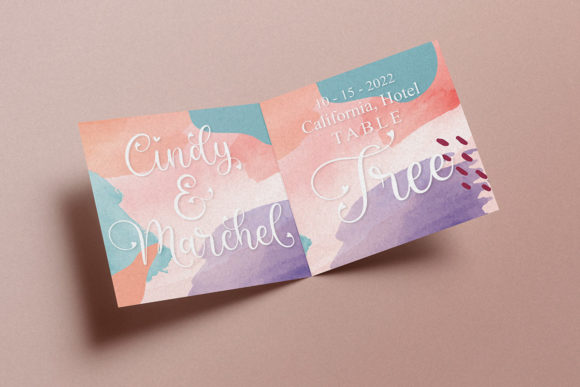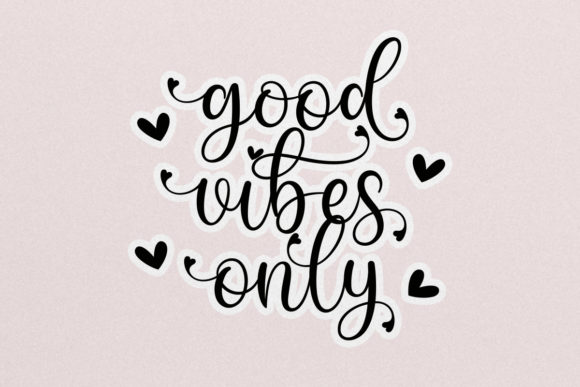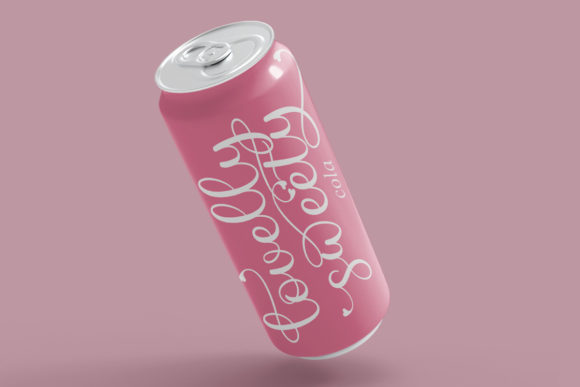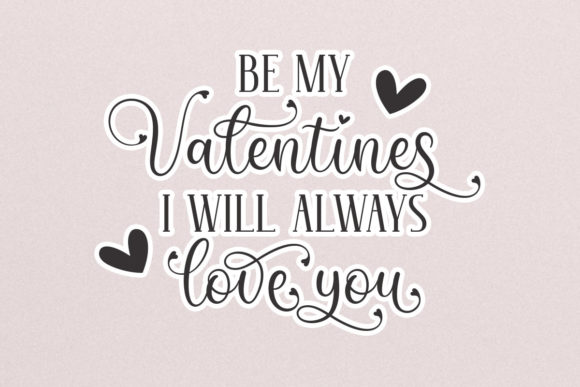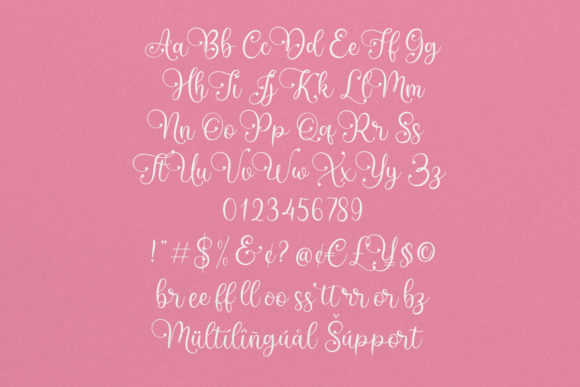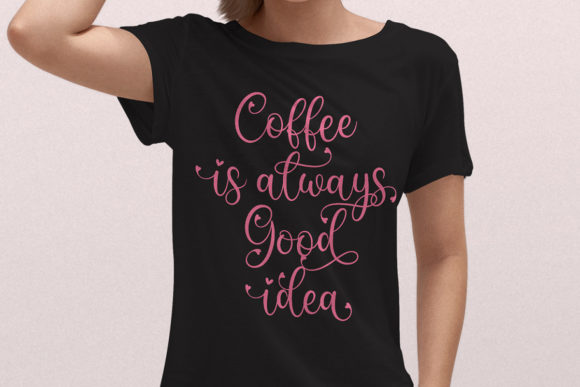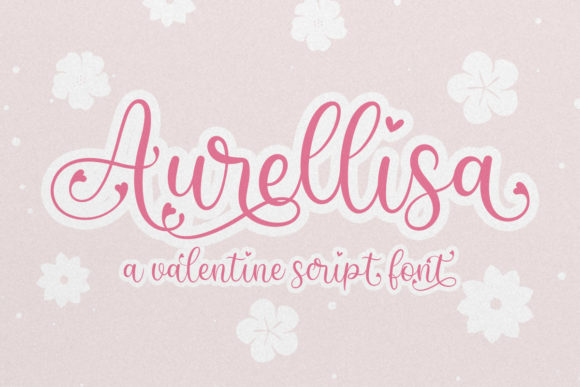
Aurellisa Font: The Perfect Handwritten Touch for Your Designs
Are you a designer or crafter looking for a font that exudes elegance and charm? Look no further than the Aurellisa Font. This beautiful handwritten font is perfect for adding a personal touch to your designs, and its versatility makes it suitable for a wide range of projects.
The Charm of Aurellisa Font
Aurellisa Font feels equally charming and elegant, making it an excellent choice for designs that require a sophisticated and refined look. Its flowing lines and delicate curves give it a whimsical feel that’s sure to capture the attention of your audience. Whether you’re designing wedding invitations, thank you cards, or greeting cards, Aurellisa Font is sure to make your project stand out.
One of the best things about Aurellisa Font is its versatility. It looks stunning on a variety of design projects, including:
- Wedding invitations: Add a touch of elegance and romance to your wedding invitations with Aurellisa Font.
- Thank you cards: Express your gratitude with beautifully designed thank you cards featuring Aurellisa Font.
- Quotes: Make your quotes stand out with the elegant and cursive lines of Aurellisa Font.
- Greeting cards: Create stunning greeting cards for special occasions like birthdays, anniversaries, and holidays.
- Logos: Use Aurellisa Font to create a unique and memorable logo for your business.
- Business cards: Add a personal touch to your business cards with Aurellisa Font.
Aurellisa Font is PUA encoded, which means you can access all of the glyphs and swashes with ease. This feature makes it easy to customize your designs and add a personal touch. With PUA encoding, you can:
- Access a wide range of glyphs and swashes to enhance your designs.
- Easily customize your font to fit your design needs.
- Create unique and intricate designs with minimal effort.
Why Choose Aurellisa Font?
There are many reasons why Aurellisa Font is an excellent choice for designers and crafters. Here are a few:
- Elegant and charming: Aurellisa Font exudes elegance and charm, making it perfect for designs that require a sophisticated look.
- Versatile: Use Aurellisa Font for a wide range of design projects, from wedding invitations to logos.
- Easy to use: With PUA encoding, accessing glyphs and swashes is easy, making it simple to customize your designs.
- High-quality: Aurellisa Font is a high-quality font that’s perfect for professional designs.
Tips for Using Aurellisa Font
Here are a few tips for using Aurellisa Font in your designs:
- Pair it with other fonts: Combine Aurellisa Font with other fonts to create a unique and visually appealing design.
- Experiment with colors: Try out different colors to find the perfect match for your design.
- Use it for headings and titles: Aurellisa Font is perfect for headings and titles, adding a touch of elegance to your design.
Aurellisa Font is a beautiful and versatile handwritten font that’s perfect for designers and crafters. Its elegant and charming lines make it suitable for a wide range of design projects, from wedding invitations to logos. With PUA encoding, accessing glyphs and swashes is easy, making it simple to customize your designs. Whether you’re a professional designer or a crafter, Aurellisa Font is an excellent choice for adding a personal touch to your designs.